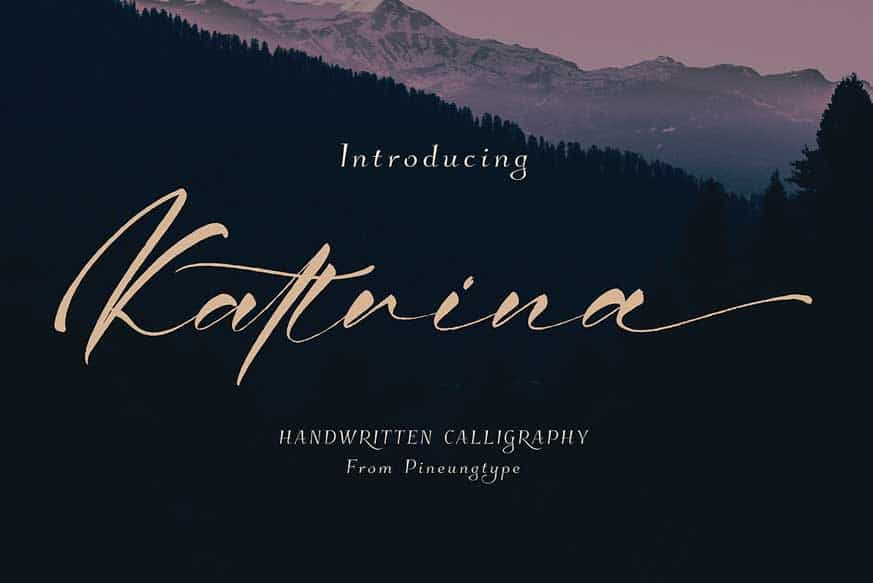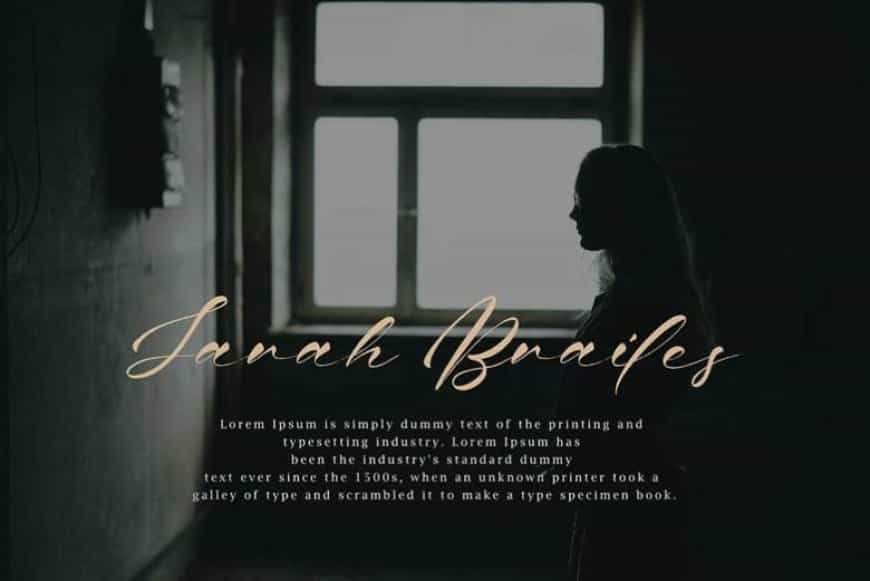
Discover Kattrina Font, part of the Calligraphy Handwritten collection—a versatile and unique font perfect for adding a personal touch to your projects. Download it for free and enjoy crafting designs with style, from invitations to social media posts. This font is available exclusively for personal use, giving you the freedom to create without limits. Unlock your creativity with Kattrina Font today!
Kattrina is a handwriting typeface, with a light and airy feel. Feel free to explore your ideas using this font!